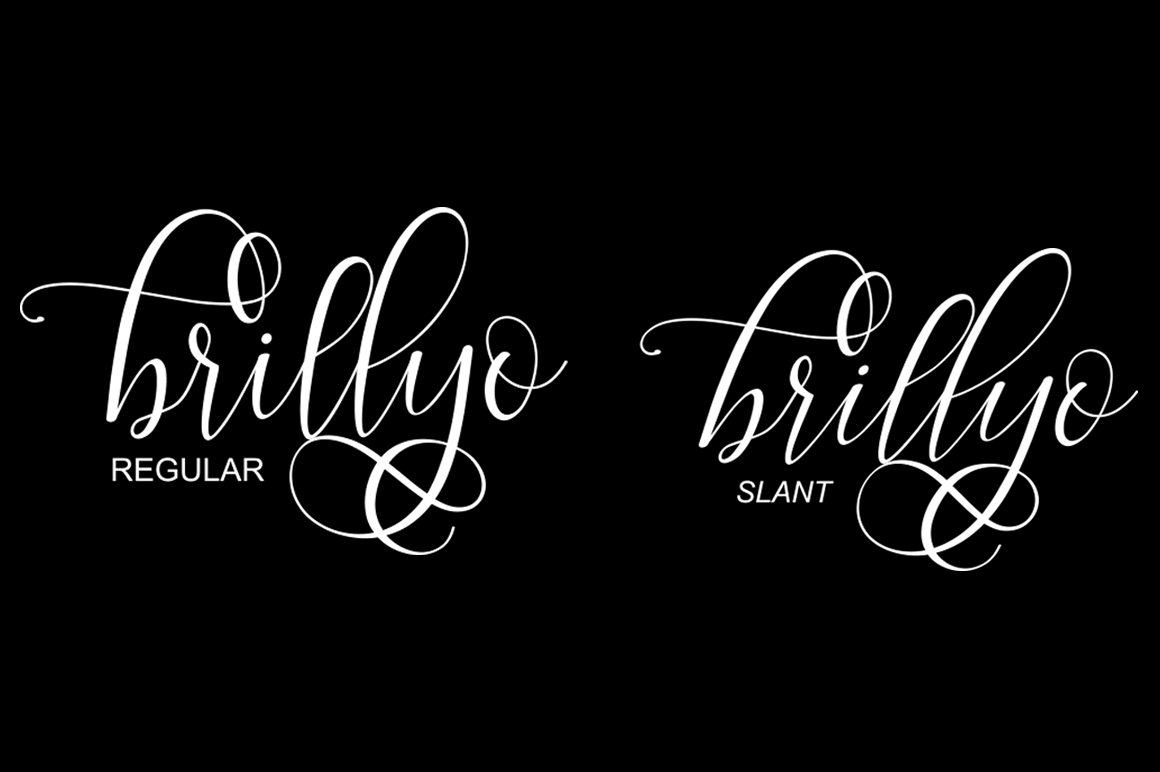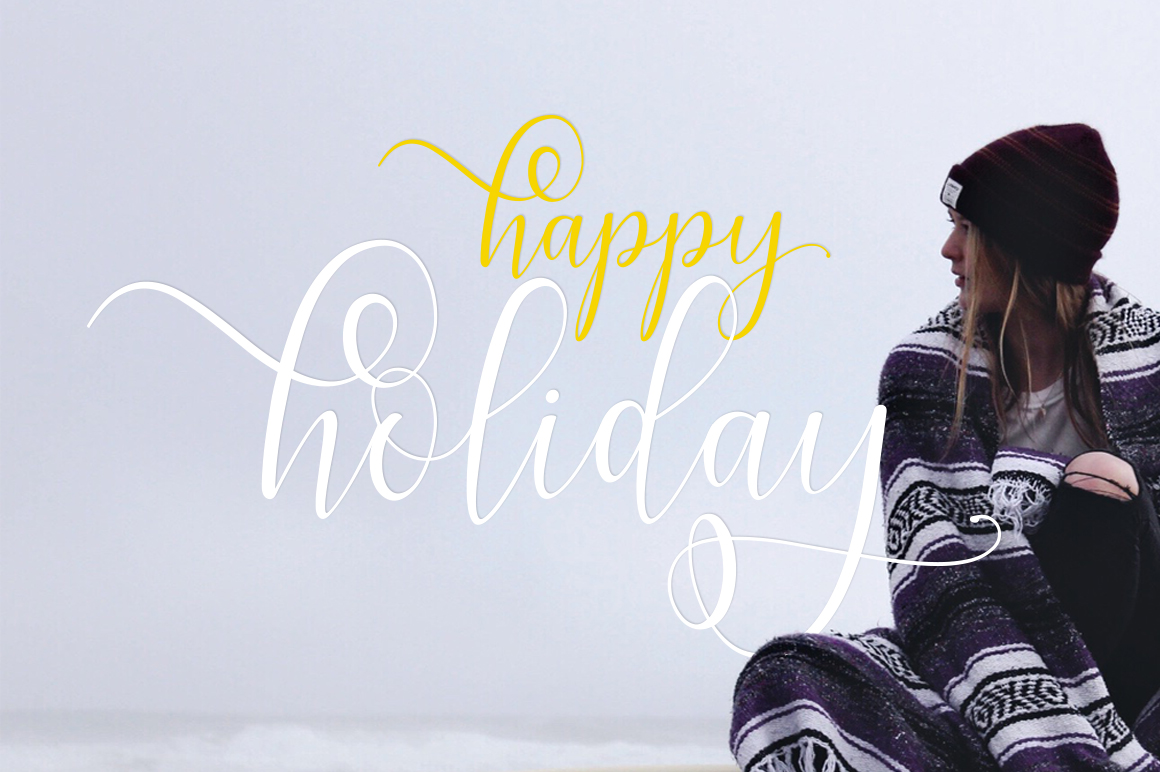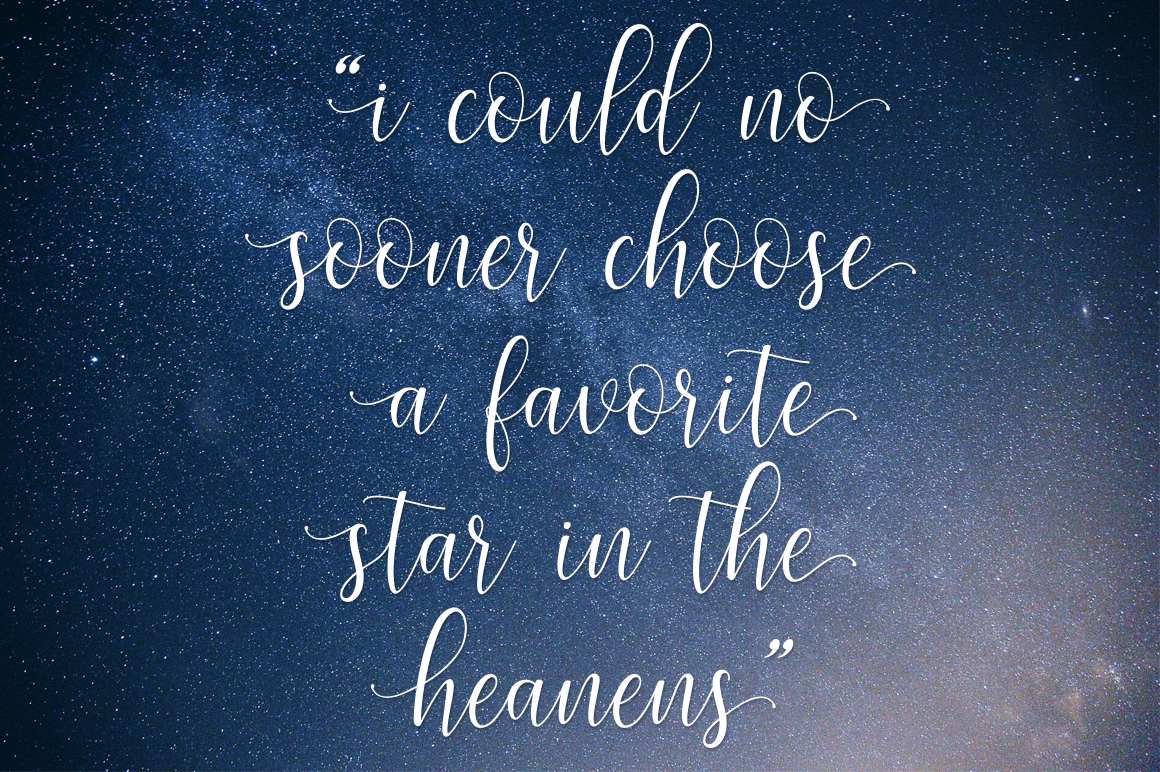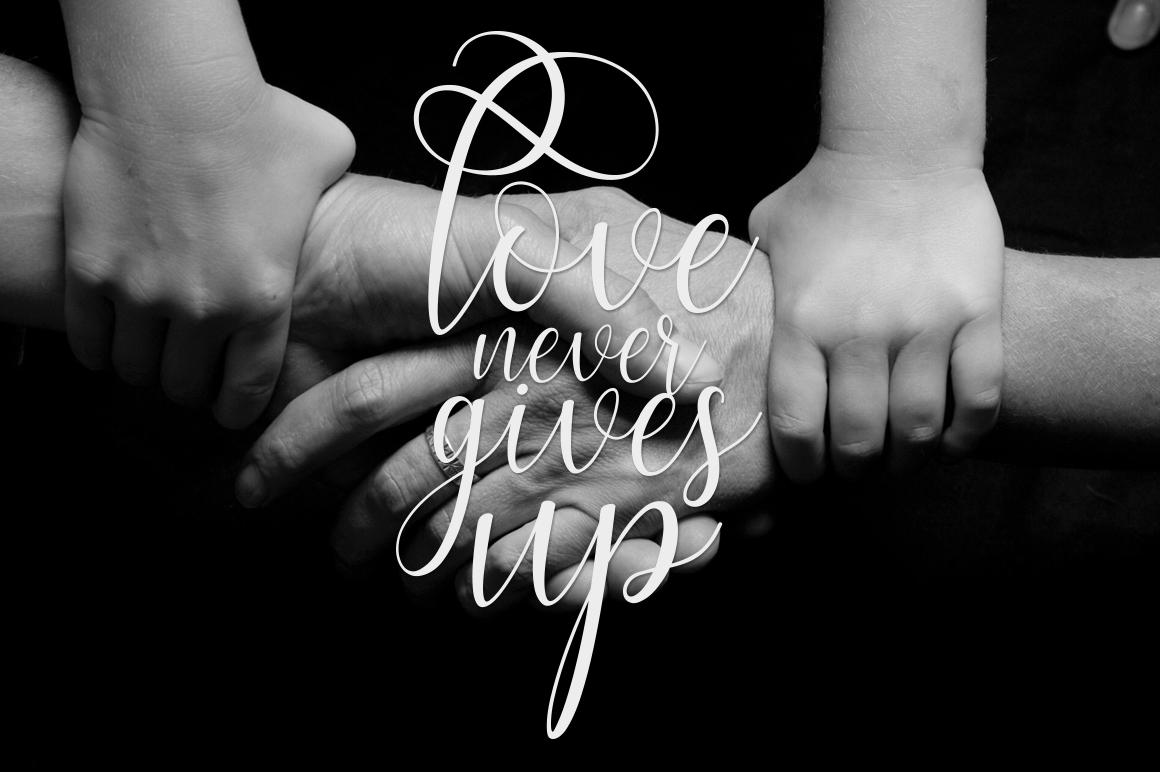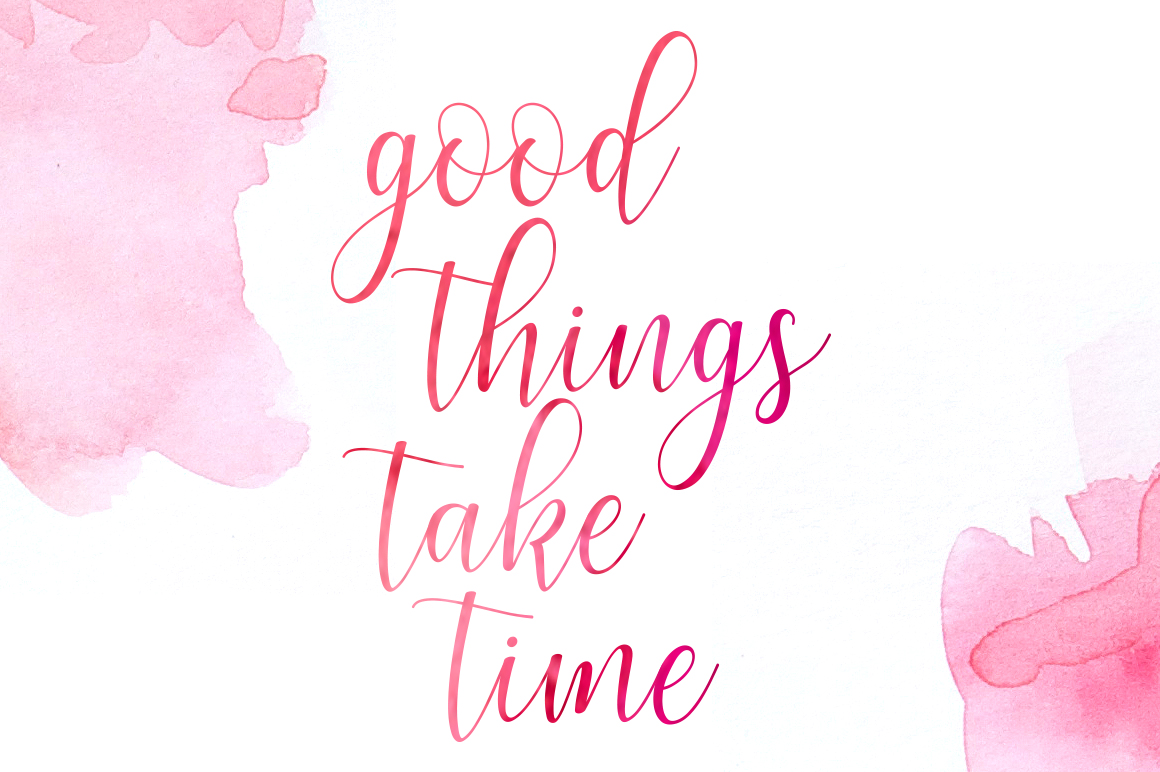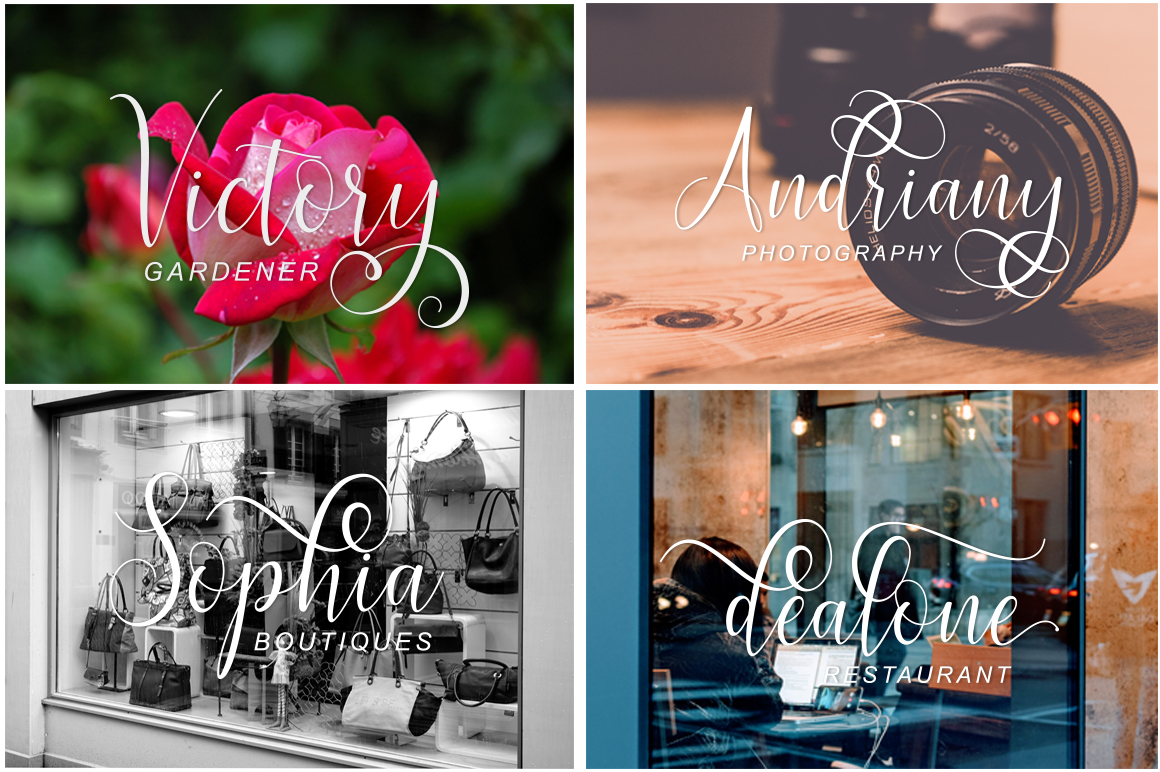
Introduction to Brillyo Font
A modern handwritten calligraphy font.
This stunning script is suitable for a great range of different projects .
Brillyo Font offers exceptional quality and versatility, making it a valuable addition to your design toolkit. Whether you’re creating for personal projects or commercial use, Brillyo Font delivers professional results.